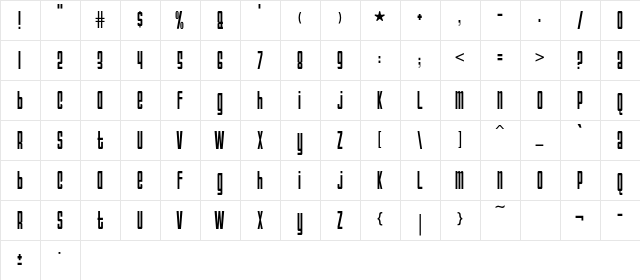
DS AnarchyC Regular
Design Context for DS AnarchyC Typeface
DS AnarchyC is a composed and adaptable typeface that performs quietly and consistently across a wide range of design contexts.
Pro Tip: Use DS AnarchyC in both headline and body roles to test its range before committing to a single application.